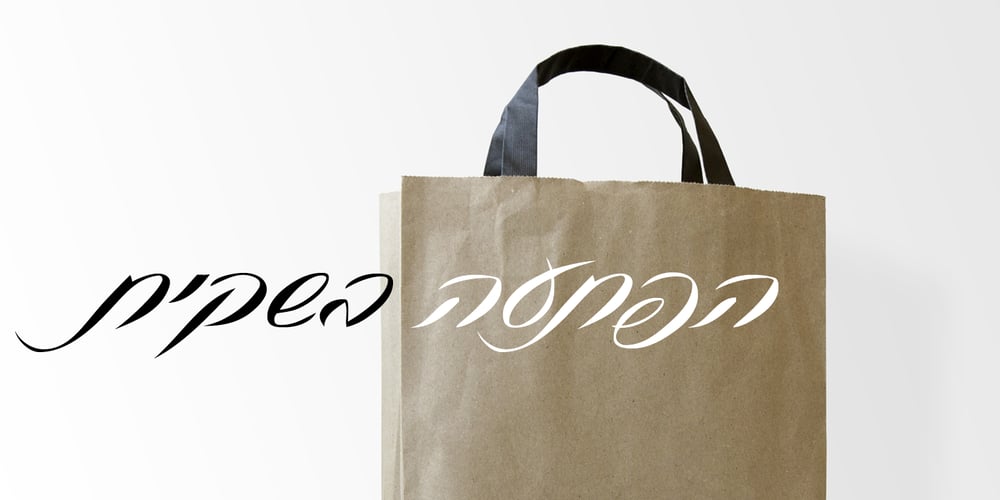
Gabriela MF Font Family was designed by Zeev Lipman and published by Masterfont. Gabriela MF contains 2 styles and family package options. Inspired by old scrolls and manuscripts., this font is unique by its flow and contrast, enabling traditional typeface gain a new and clear flow and rhythm.